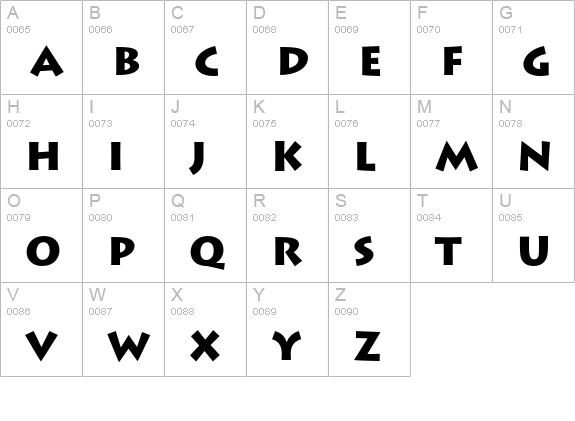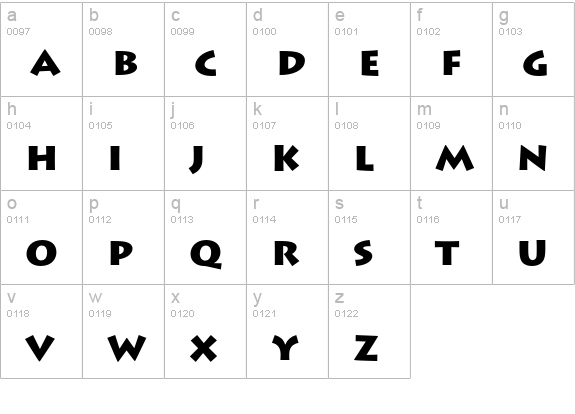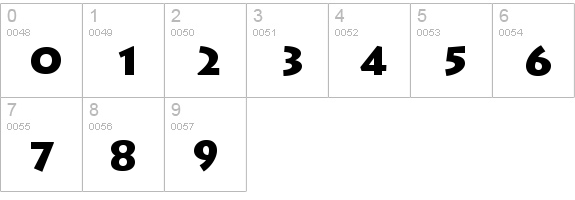
Lithos Pro Black is a maximum-weight, dramatic variant in the Lithos typeface family \xE2\x80\x94 well suited to maximum-impact headlines, posters, and packaging.
Lithos Pro Black font is a bold and commanding typeface that exudes strength and power. With its thick and solid letterforms, this font is perfect for creating eye-catching headlines and impactful designs. The geometric shapes and sharp edges of Lithos Pro Black give it a modern and edgy look that is sure to make a statement. And the best part is, Lithos Pro Black font is available for free download at FontsMarket.com! Whether you're working on a poster, logo, or any other creative project, this versatile font will add a touch of sophistication and boldness to your designs. Don't miss out on the opportunity to enhance your work with the striking presence of Lithos Pro Black font. Download it for free today and take your designs to the next level!